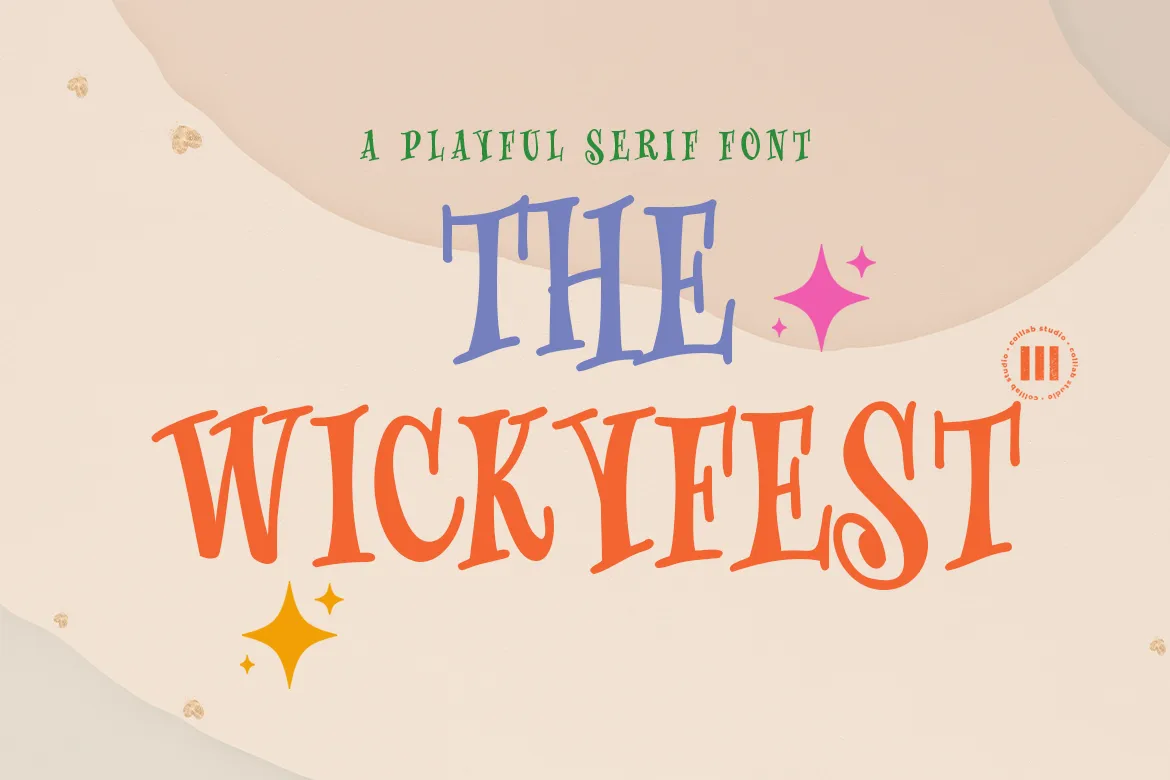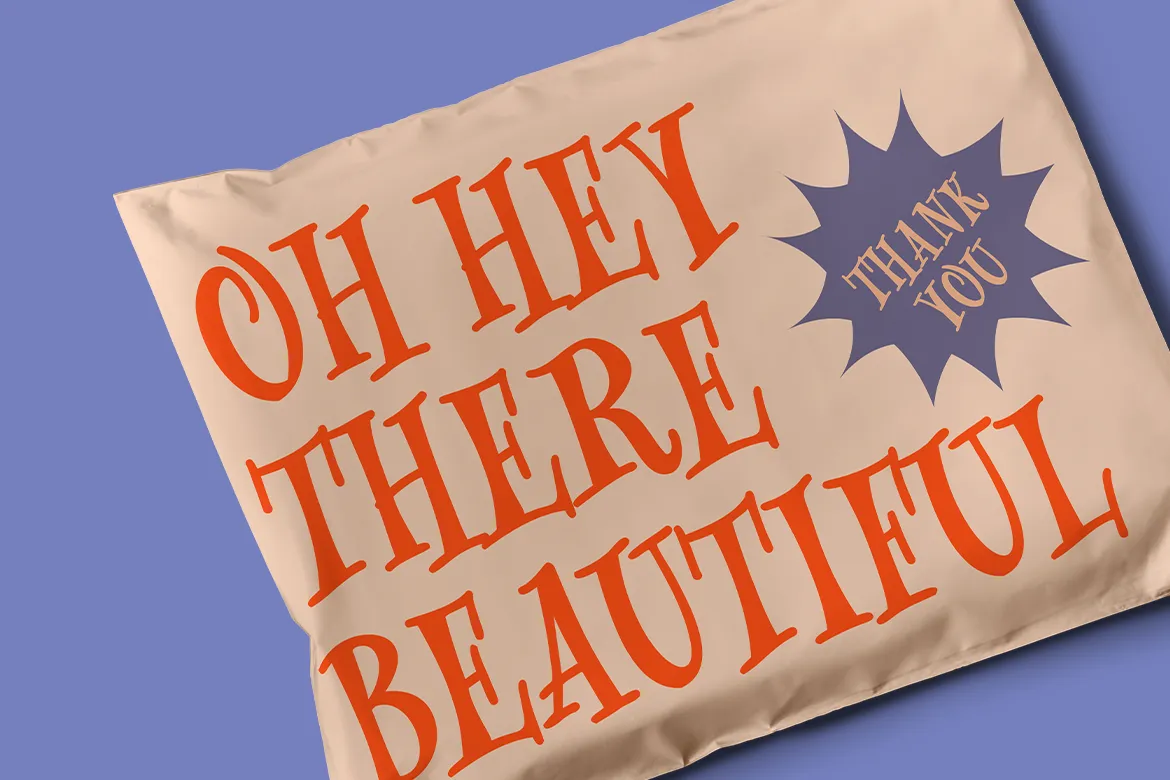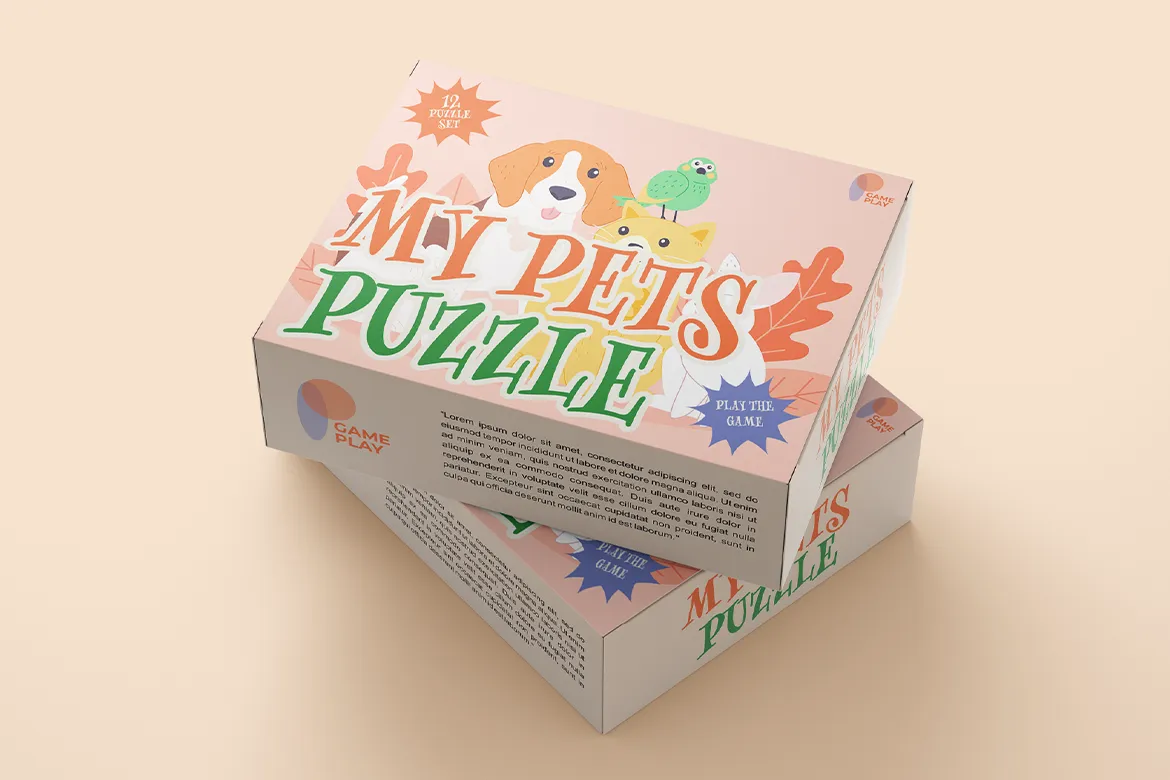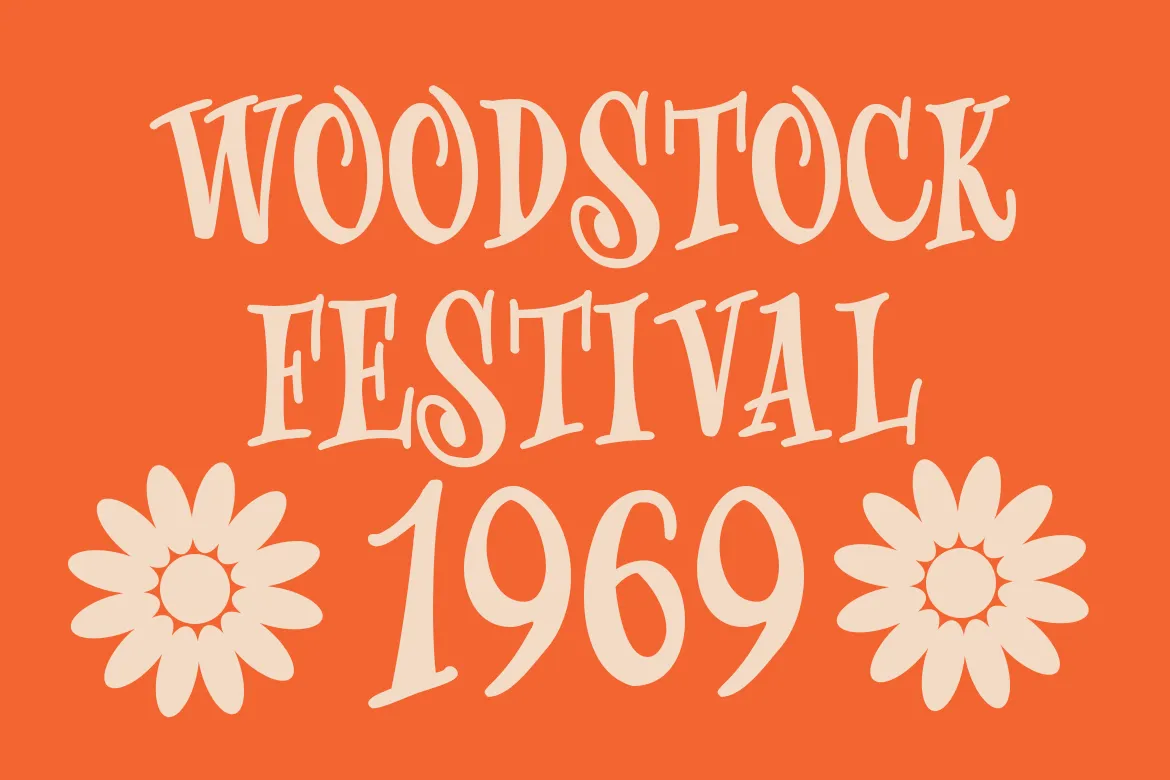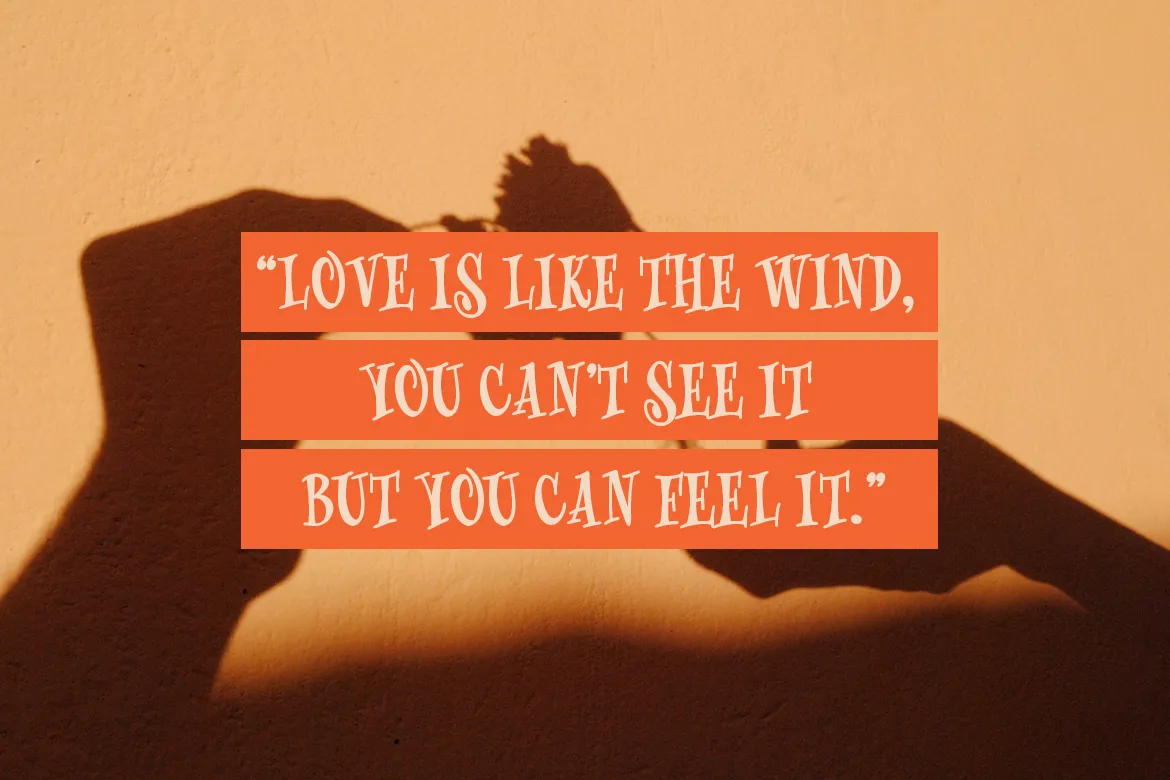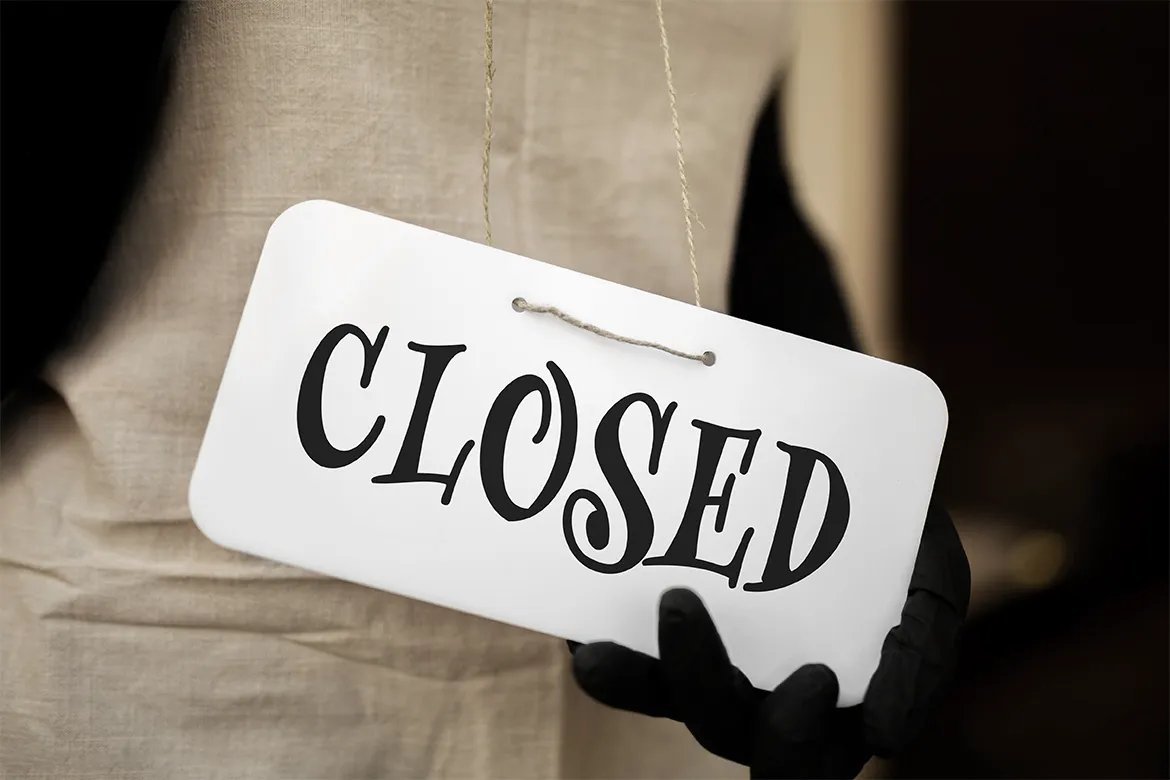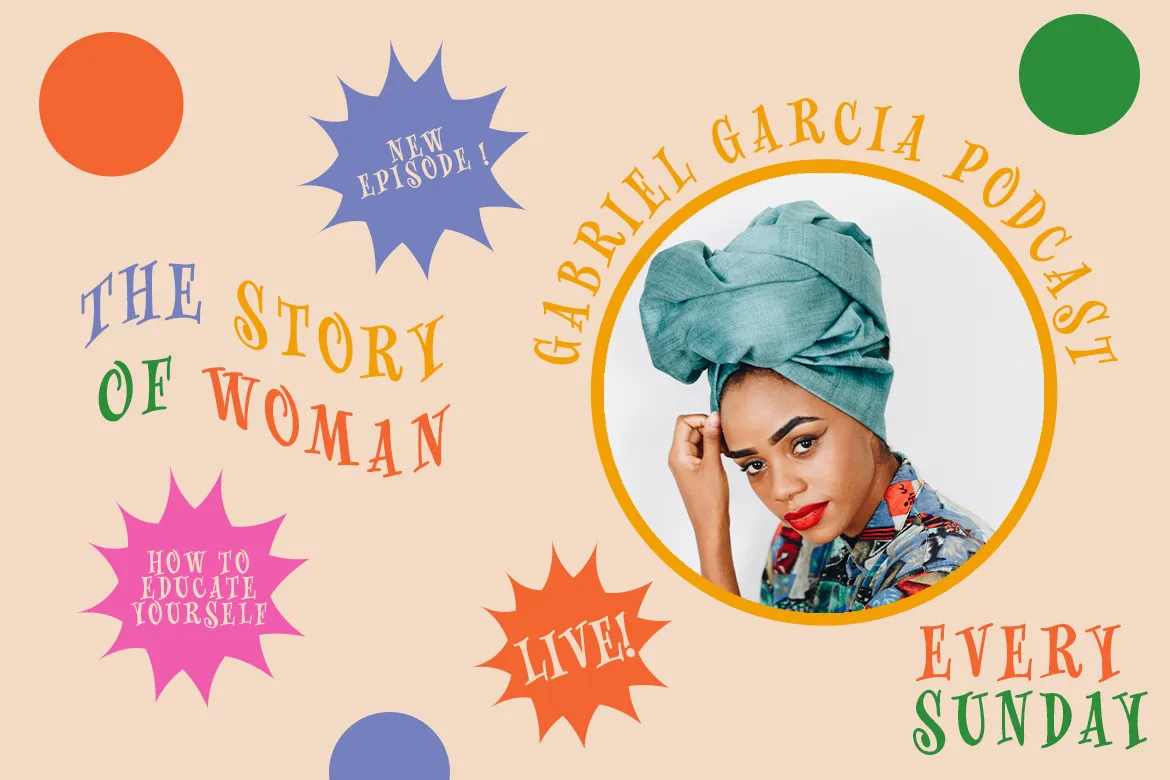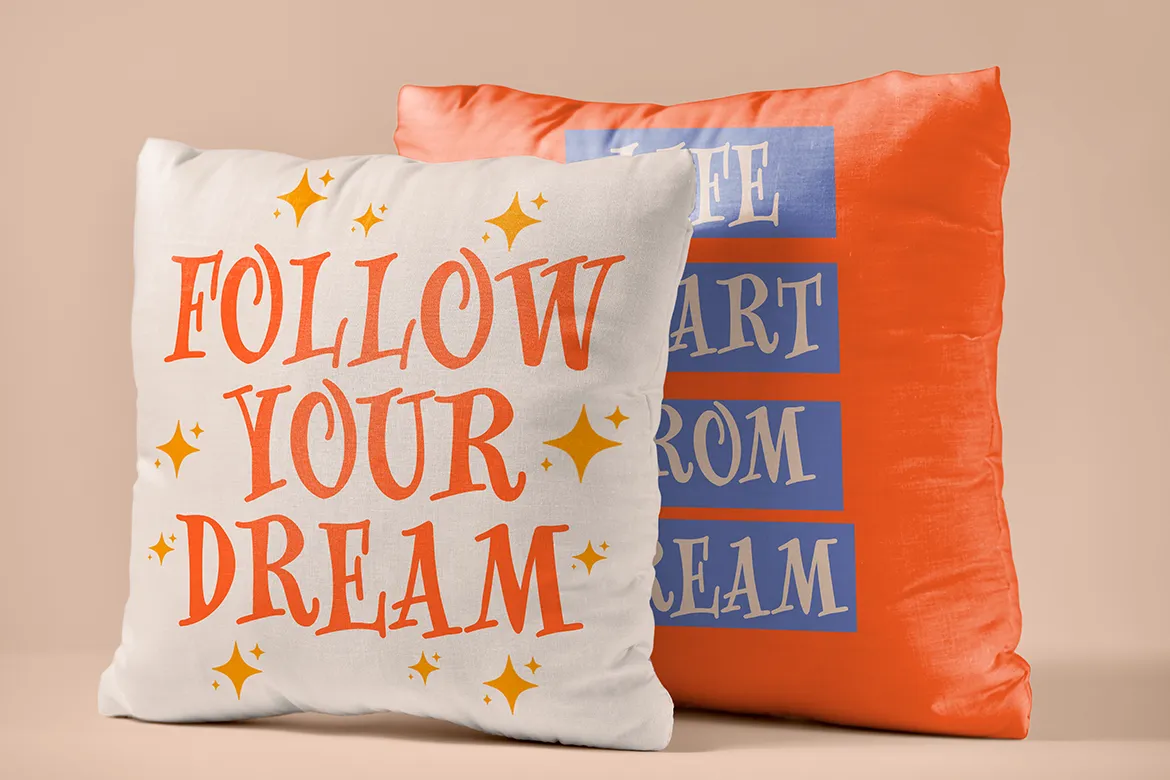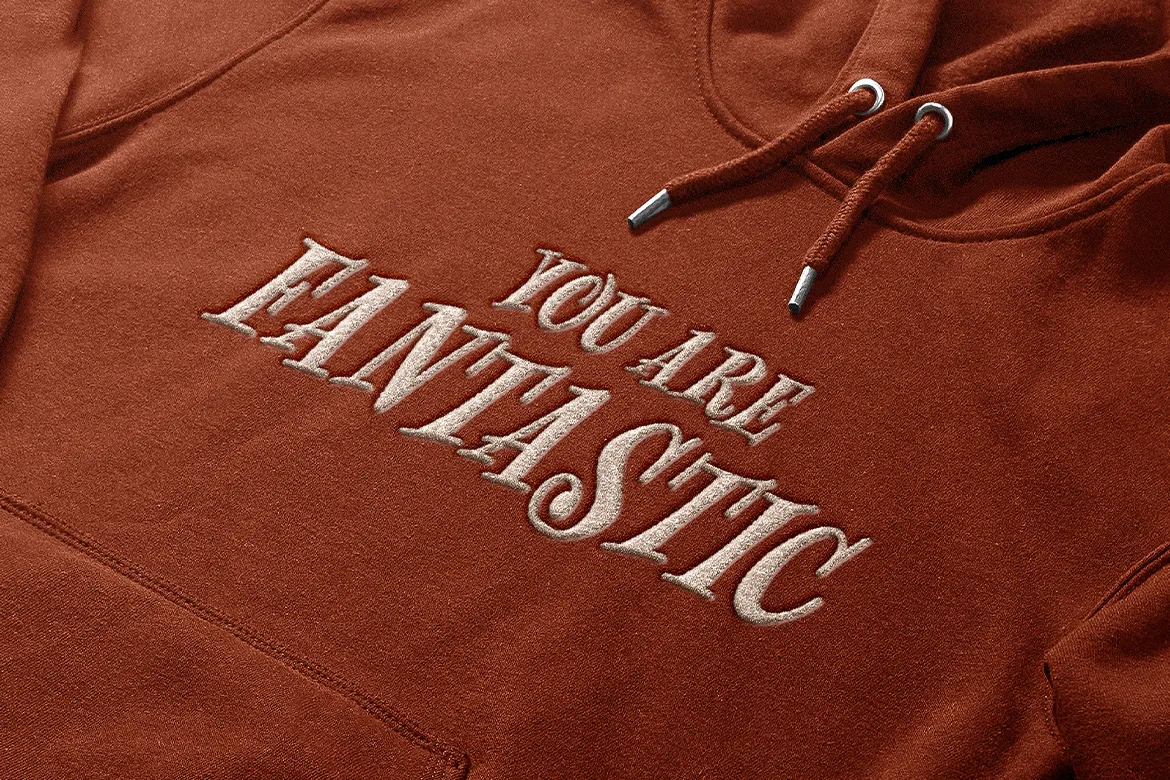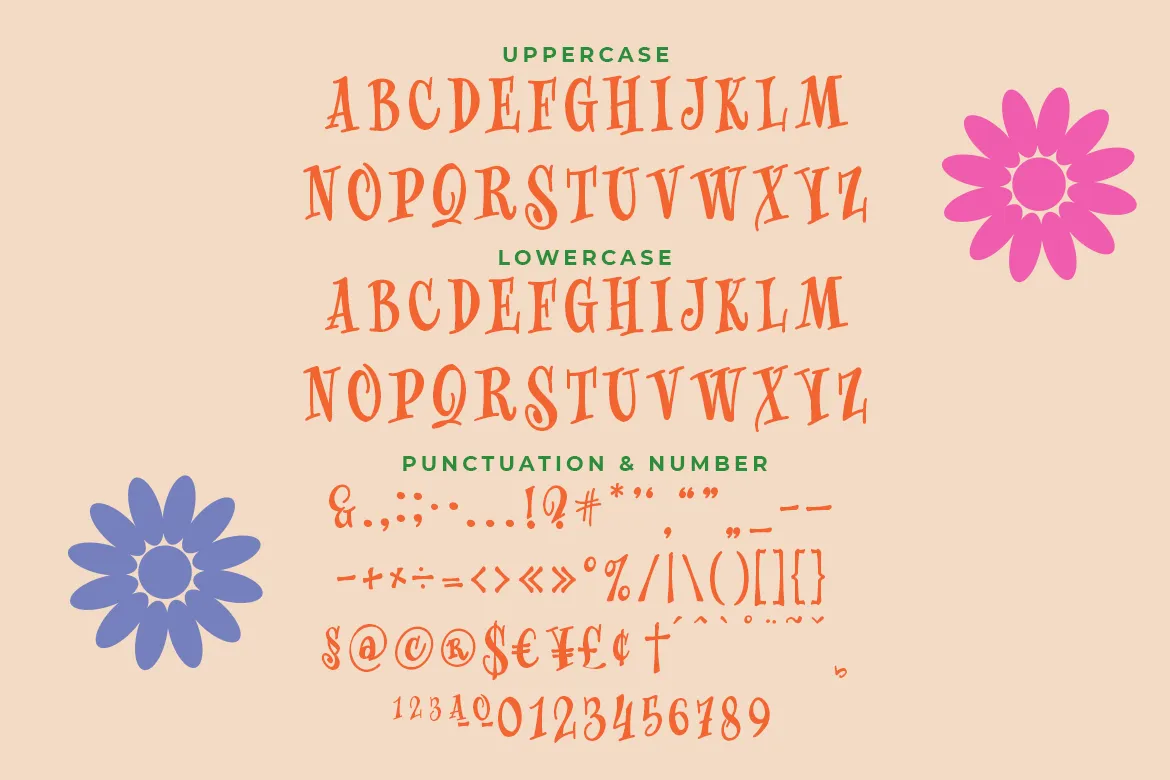
Introducing The Wickyfest, a playful serif font with a classic tone. If your next project requires a playful touch, you’ll love this collection of special characters and features. The Wickyfest style is incredibly well-crafted, resulting in versatile characters that can present a dashing display for your branding designs and ads. For more extravagant projects, try The Wickyfest for children-related graphics, like book covers, movie titles, or posters.